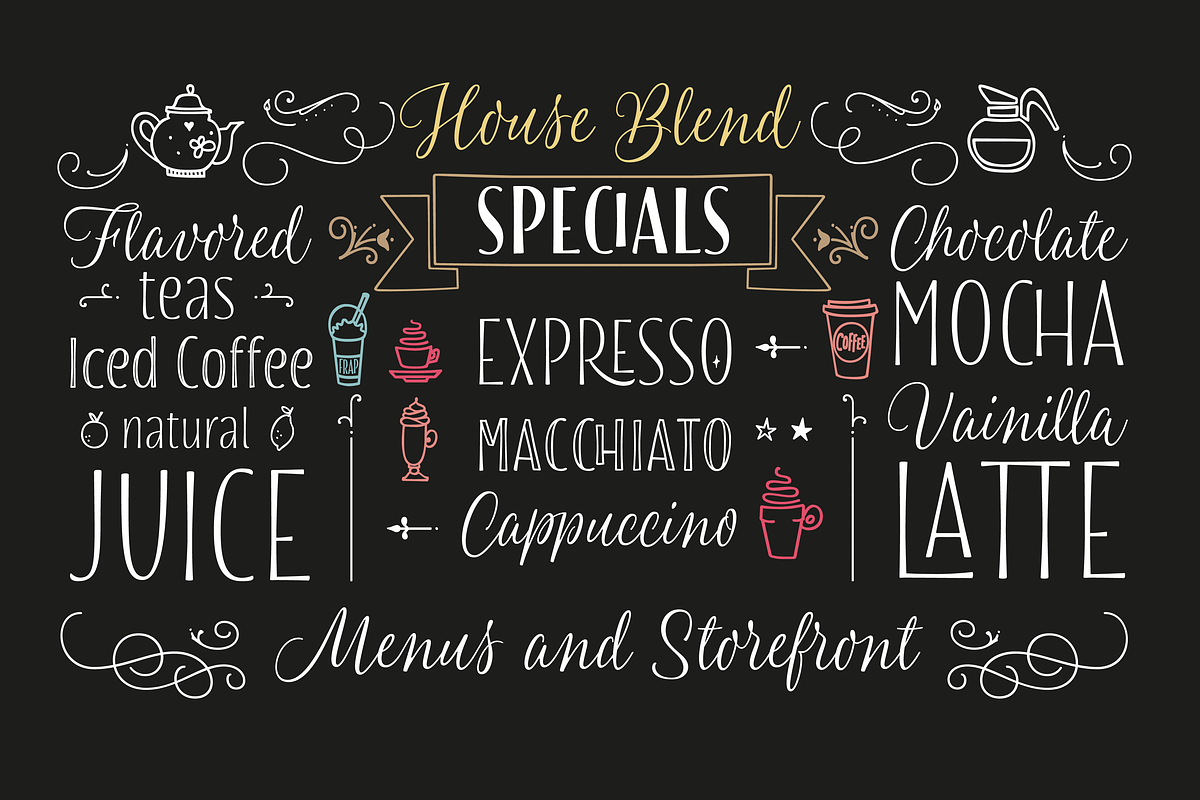
Blend – Script Font Free Download is a stylish and elegant handwritten script typeface that exudes sophistication and charm. With its smooth curves, flowing letterforms, and natural handwritten feel, this font is perfect for creating custom invitations, logos, branding, quotes, and any design that calls for a personal, artistic touch.
The smooth, flowing style of Blend makes it versatile enough for both formal and informal designs. Whether you're working on a luxury brand, a creative portfolio, or an elegant wedding invitation, this font adds a touch of class and elegance to your typography.
Add elegance and style to your designs with the beautiful and fluid design of Blend! ✨